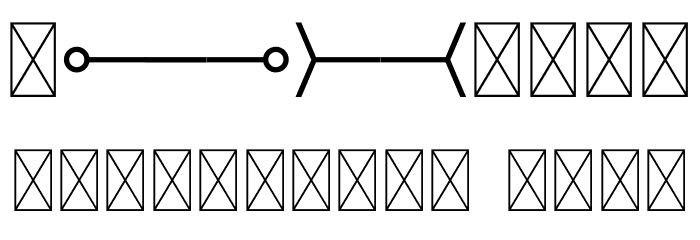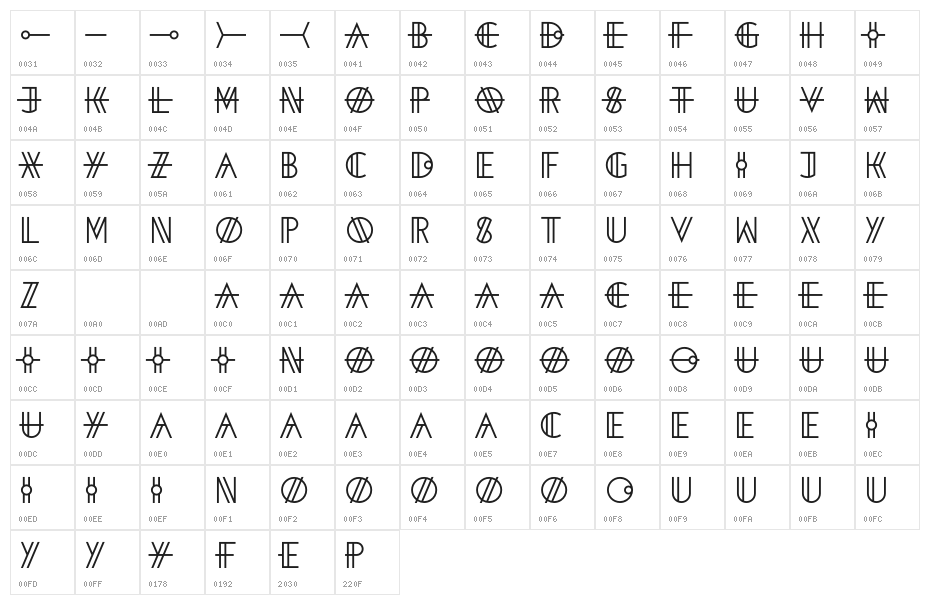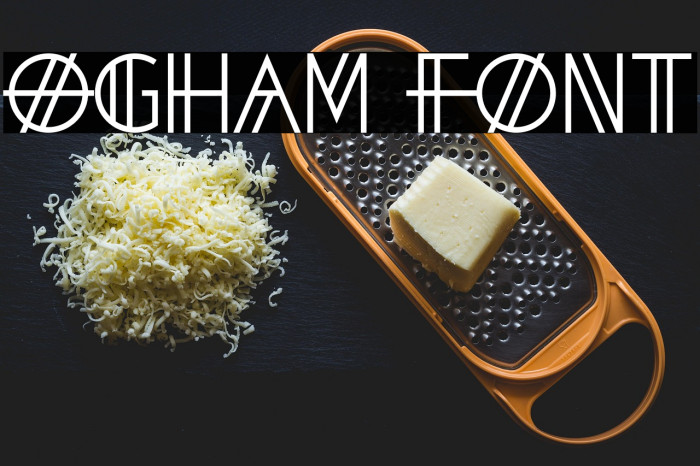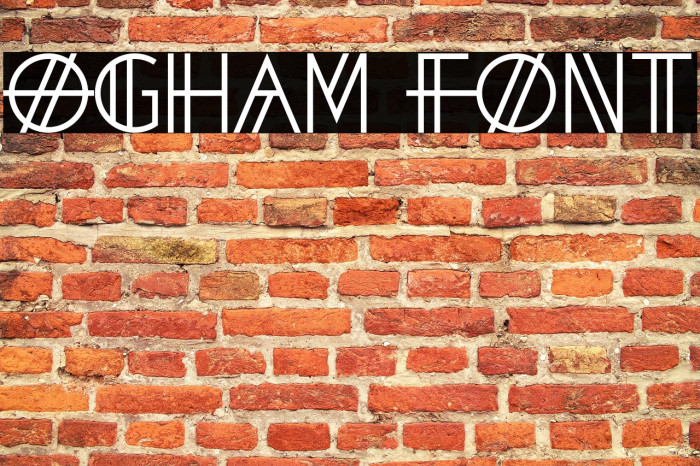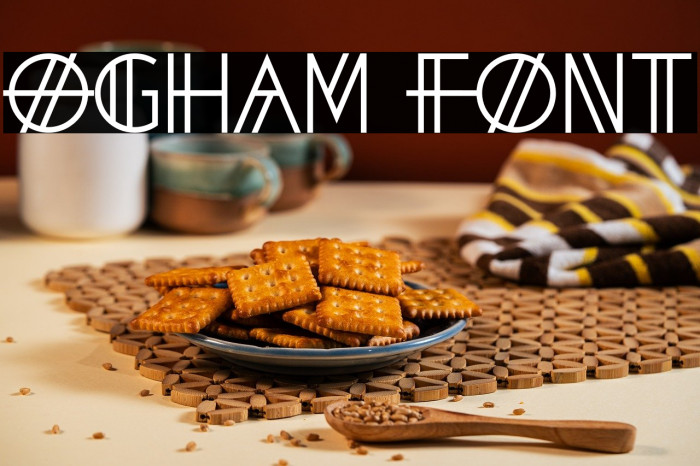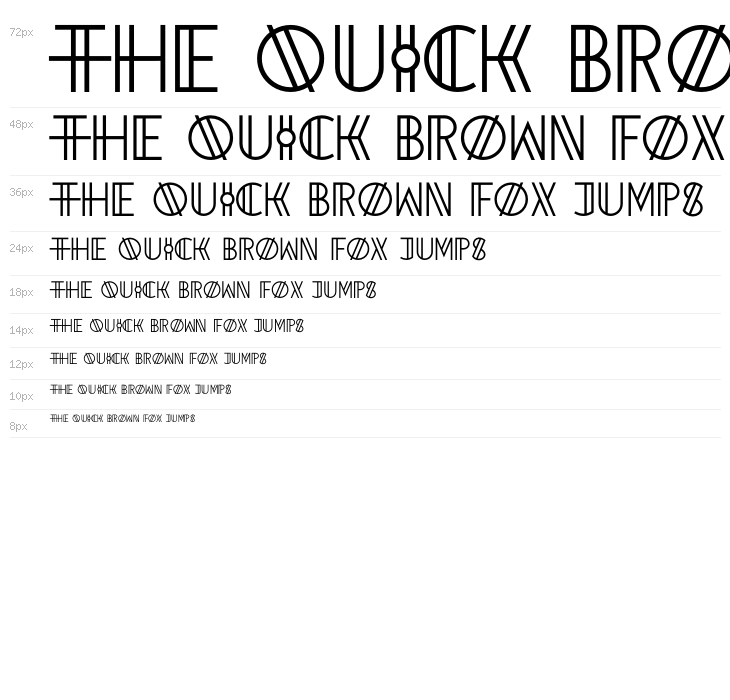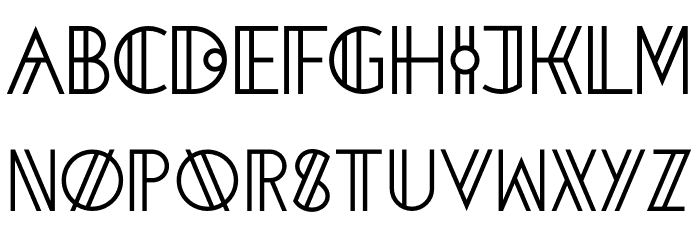
Ogham Font
Ogham Description
This font features a unique and decorative style, characterized by geometric shapes and intersecting lines that create a sense of symmetry and balance. The uppercase letters are composed of straight lines and circles, giving them a futuristic and abstract appearance. The lowercase letters maintain the same geometric theme, with consistent line thickness and spacing. The numbers and special characters follow the same design principles, ensuring a cohesive look across all elements. This font's distinct style makes it stand out, offering a modern twist on traditional typography.
| Proposed Projects | Ideal for futuristic designs, branding, logos, and modern art projects. |